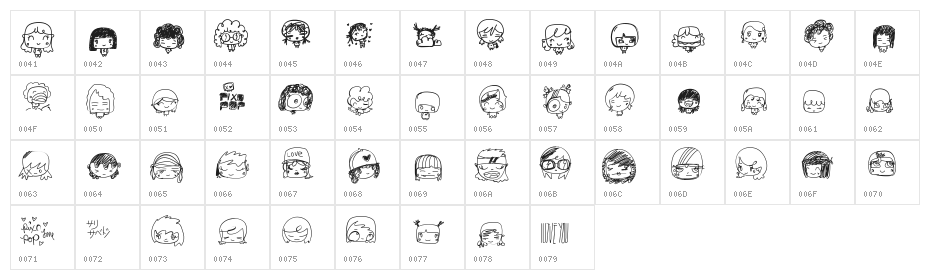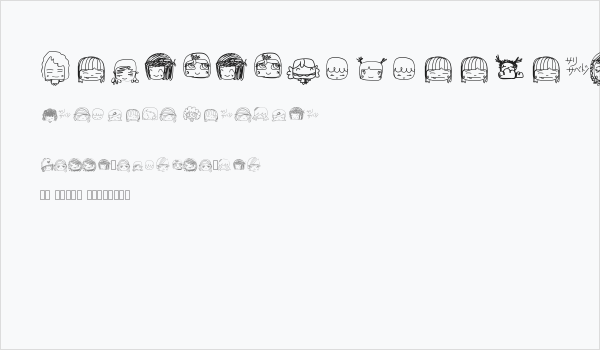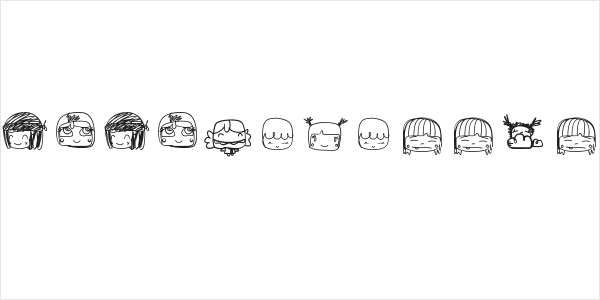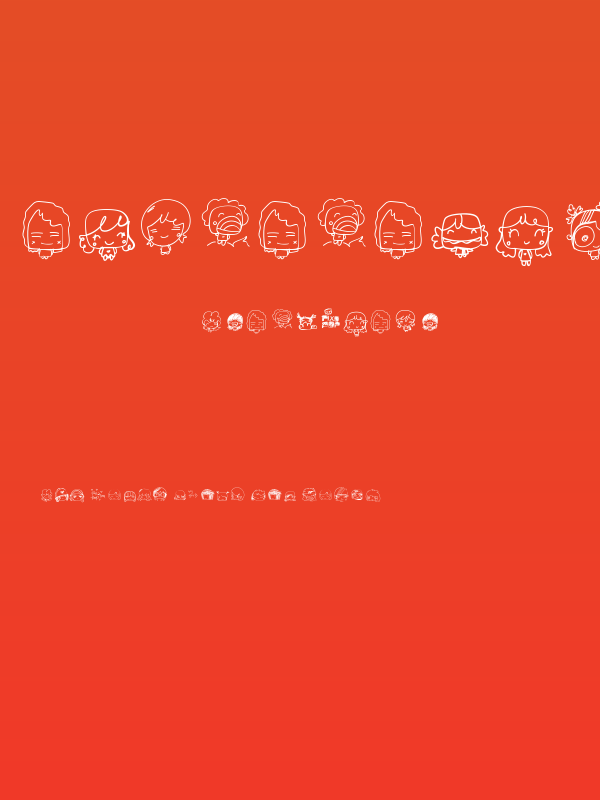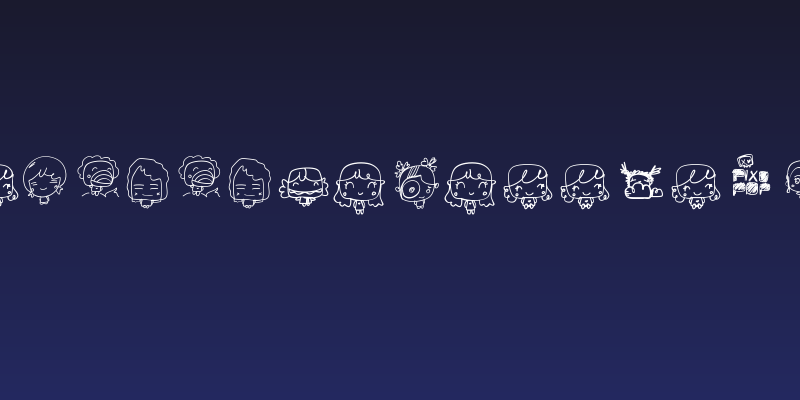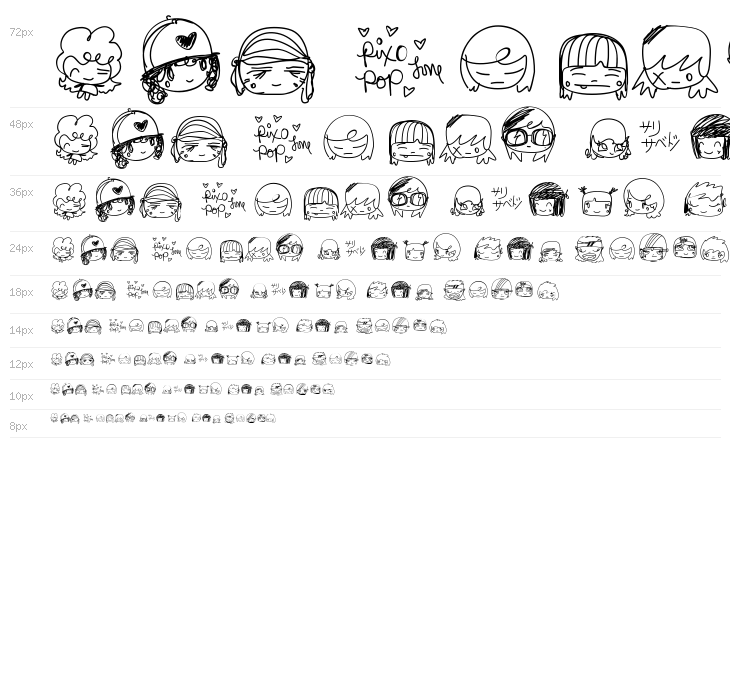
PixopopKawaiiGirls Font
PixopopKawaiiGirls Description
This is not a traditional font but rather a collection of whimsical, cartoon-style character illustrations. Each character is uniquely designed with playful and expressive features, capturing a sense of fun and creativity. The characters are drawn in a hand-drawn style, with varying hairstyles and accessories, adding to their individuality. The overall look is cute and appealing, making it suitable for projects that aim to convey a lighthearted and youthful vibe.
| Use Case | Illustrations, Decorative elements |
| Proposed Projects | Ideal for children's books, playful branding, greeting cards, and creative art projects. |